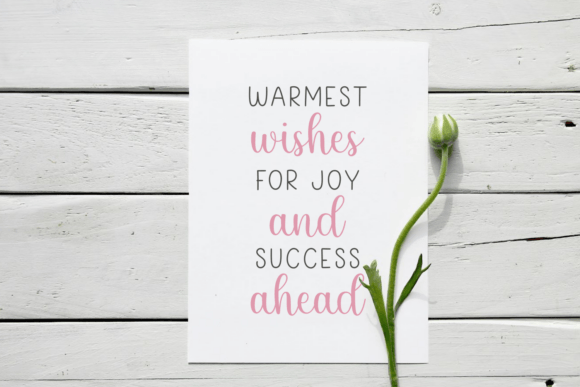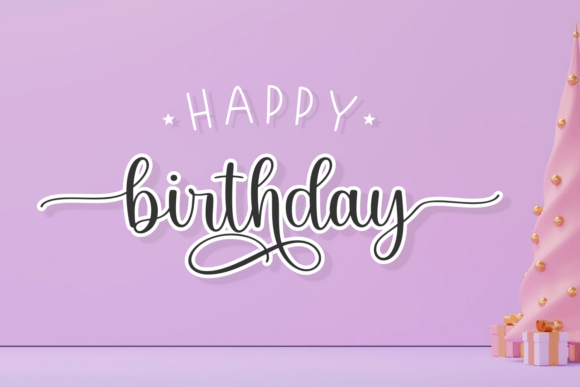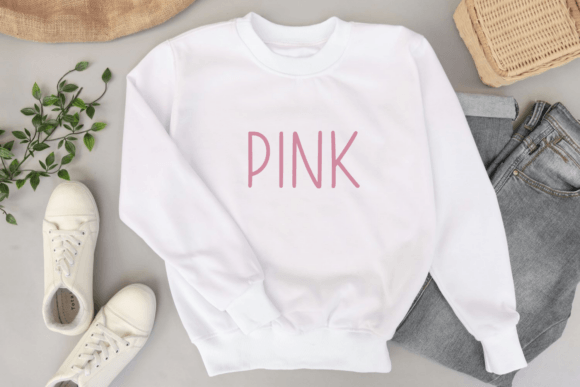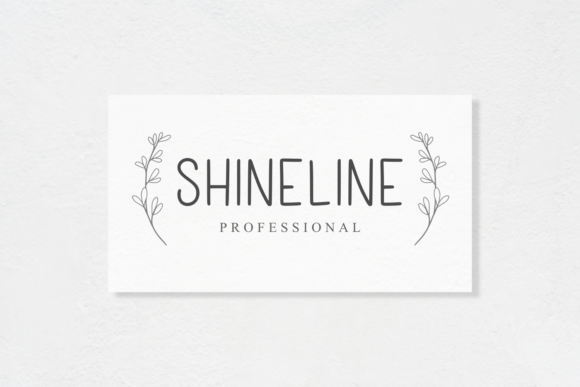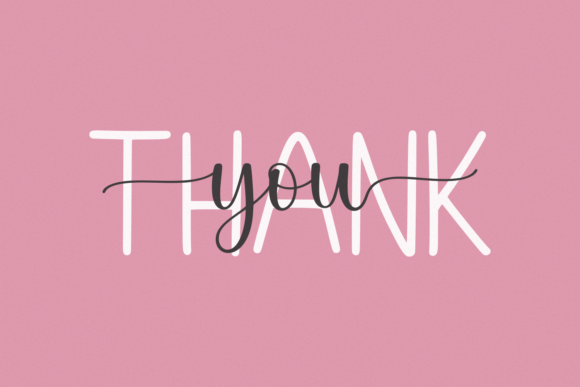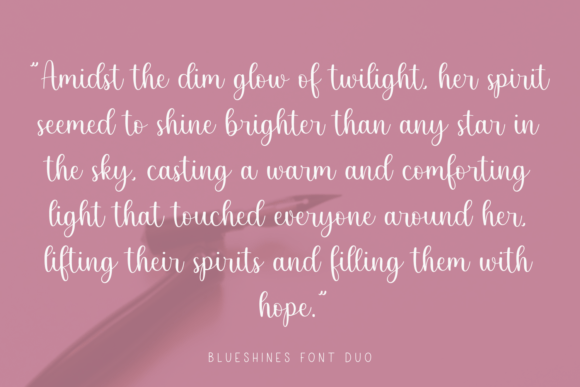
Unlocking Endless Creativity with the Blueshines Font
Have you ever stared at a blank canvas, unsure of where to begin? The blank page can be daunting, but what if you had the perfect tool to spark your creativity? For designers, finding the right font can be the key to unlocking a project’s full potential. That’s where the Blueshines Font comes in – a beautiful, elegant duo that combines style with a relaxed touch.
The Blueshines Font is designed to work beautifully together or individually, bringing a fresh and uplifting feel to any design. Its PUA encoding makes it effortless to access all its glyphs and swashes, allowing designers to customize and explore its full creative potential. Whether you’re working on a logo, poster, or digital project, the Blueshines Font is a valuable addition to your toolkit.
- Unique Characteristics: Elegant, modern script font with a touch of elegance and sophistication; perfect for invitations, logos, and other creative projects
- Font Style: Supports regular and bold font styles, with optional ligatures and swashes for added flair
Blueshines Font Review
I’ve had the chance to play around with the Blueshines Font, and I must say, it’s a unique addition to any design project. Here are my honest thoughts:
- The Blueshines Font has a distinctive, hand-painted feel that adds a touch of whimsy to any text.
- It’s perfect for designs that need a bit of a vintage or retro vibe.
- The font is highly customizable, making it easy to adjust the style to fit your project’s needs.
- The font may be too playful for more serious or formal designs, so use it sparingly.
- Some characters, like the numbers and punctuation, may not be as well-designed as the rest of the font.
- It’s not ideal for small text sizes, as the characters can become difficult to read.
Overall, I think Blueshines Font is a great addition to any designer’s toolkit. It’s perfect for adding a bit of personality to your designs, and its customizability makes it a great choice for projects that require a unique touch. Just be mindful of its limitations, and use it in contexts where it will shine.
Tips for Getting the Most Out of Blueshines Font
Here are some tips to help you get the most out of Blueshines Font:
- Use Blueshines Font in combination with other creative fonts to add visual interest to your designs.
- Use Blueshines Font to create a consistent brand identity across your marketing materials.
Alternatives to Blueshines Font
Montserrat is a sans-serif font designed by Julieta Ulanovsky. It is a great alternative to Blueshines Font for titles and headings due to its geometric and modern look. Montserrat is highly legible and versatile, making it suitable for a wide range of applications, including digital and print media.
Comparison: Montserrat has a more geometric and modern look compared to the softer and more rounded appearance of Blueshines Font. Montserrat is ideal for digital interfaces, while Blueshines Font is better suited for print media.
Lato is a sans-serif font designed by Łukasz Dziedzic. It is a great alternative to Blueshines Font for body text due to its clean and modern look. Lato is highly legible and comes in a range of weights, making it suitable for a wide range of applications, including digital and print media.
Comparison: Lato has a more minimalist and clean look compared to the softer and more rounded appearance of Blueshines Font. Lato is ideal for body text, while Blueshines Font is better suited for titles and headings.